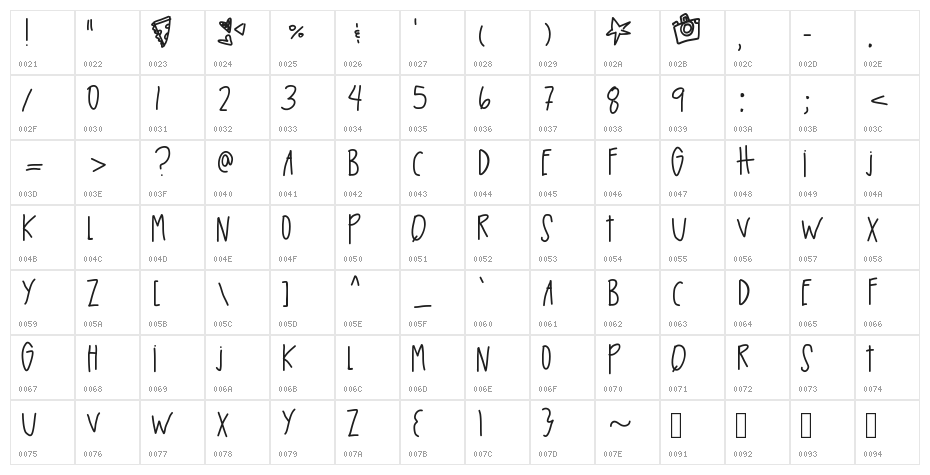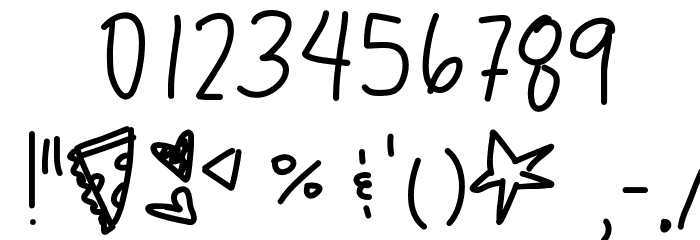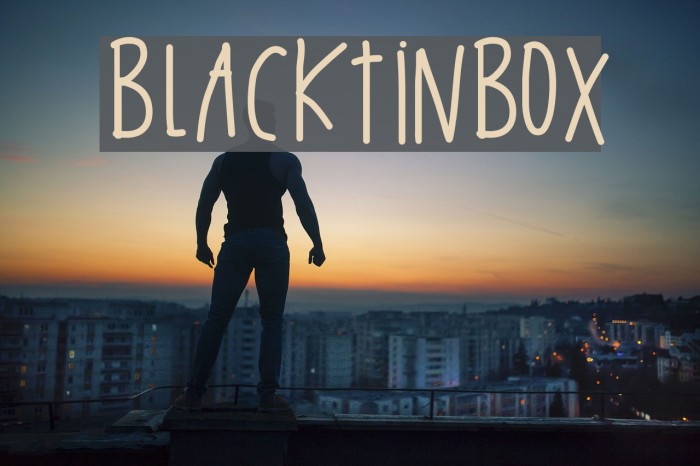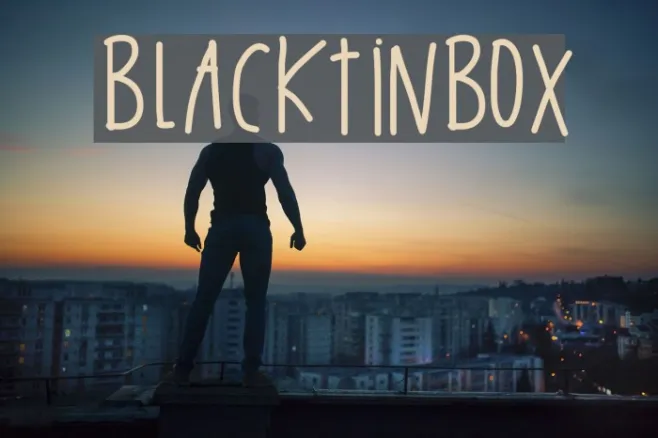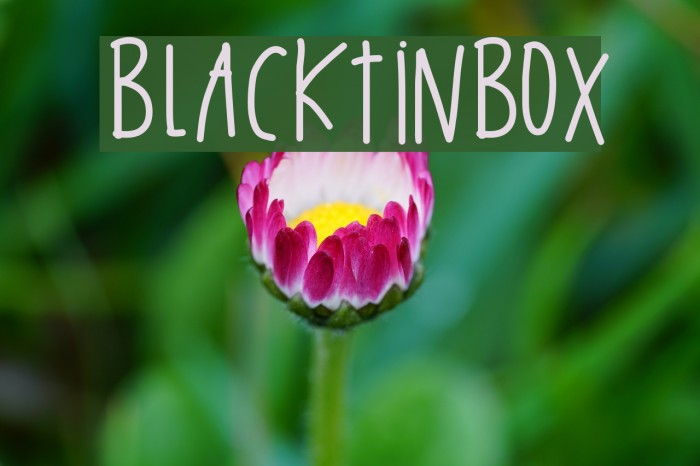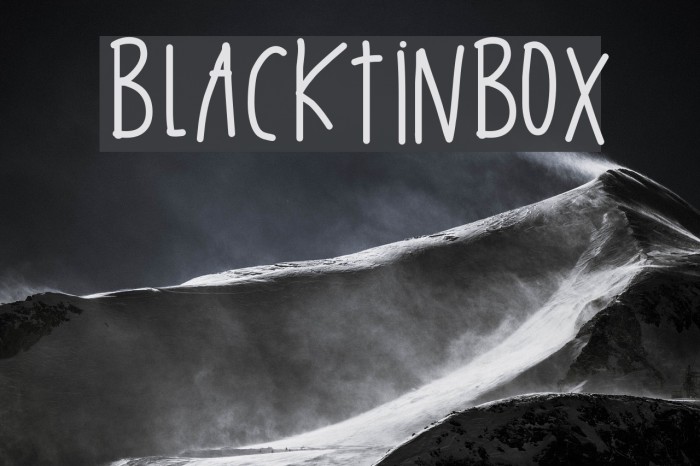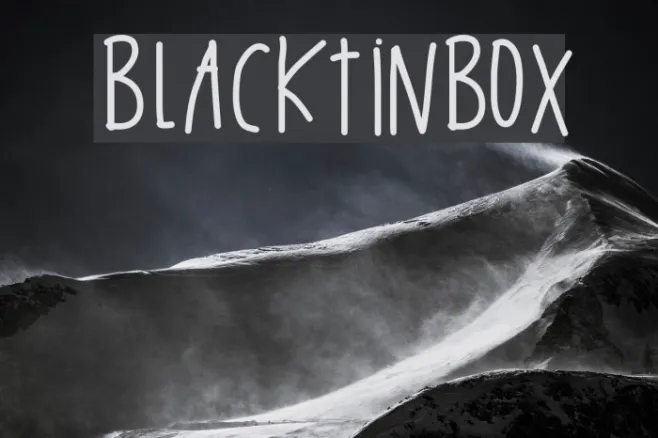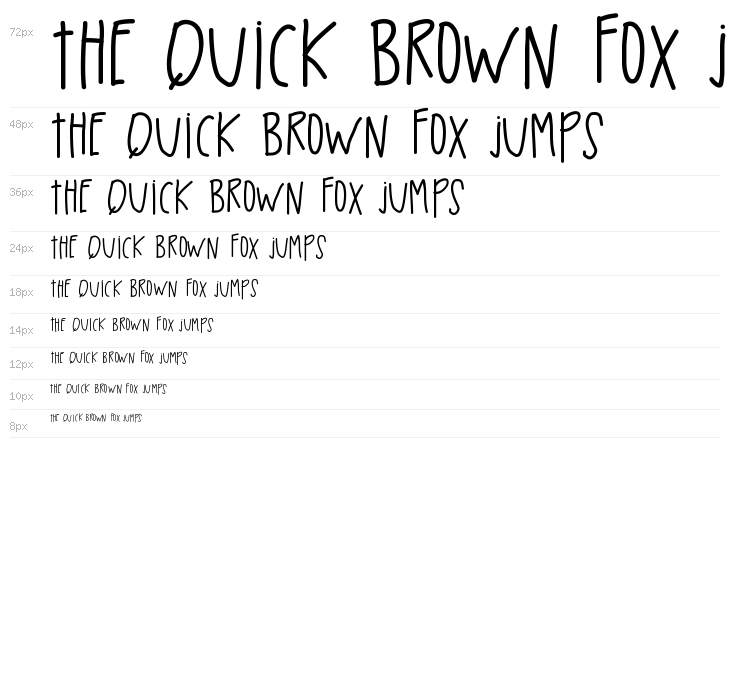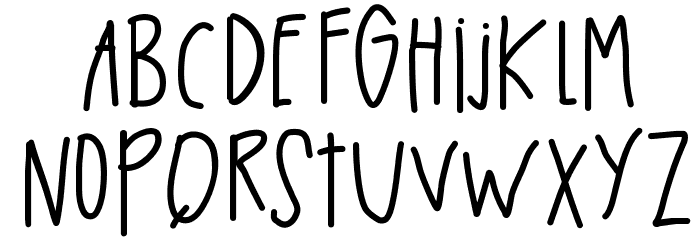
BlackTinBox Font
BlackTinBox Description
This font features a playful and casual handwritten style, characterized by its tall, narrow letters with a slightly irregular baseline, giving it a whimsical and informal appearance. The uppercase and lowercase letters maintain a consistent height, contributing to a cohesive look. The strokes are smooth and uniform, with rounded edges that enhance its friendly and approachable feel. The numerals and special characters are crafted with the same playful touch, making them blend seamlessly with the alphabet. This font is ideal for projects that require a personal and relaxed tone, such as greeting cards, children's books, or creative branding.